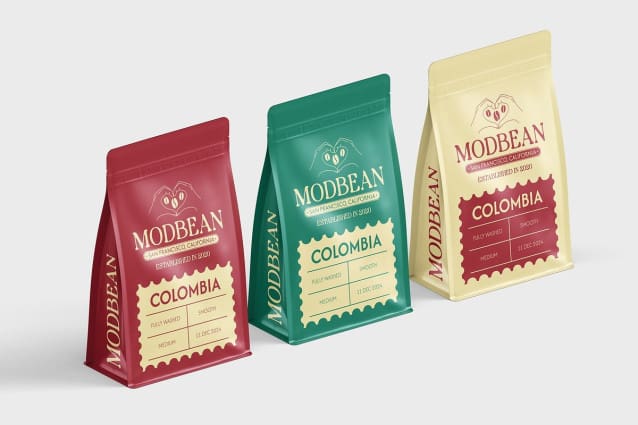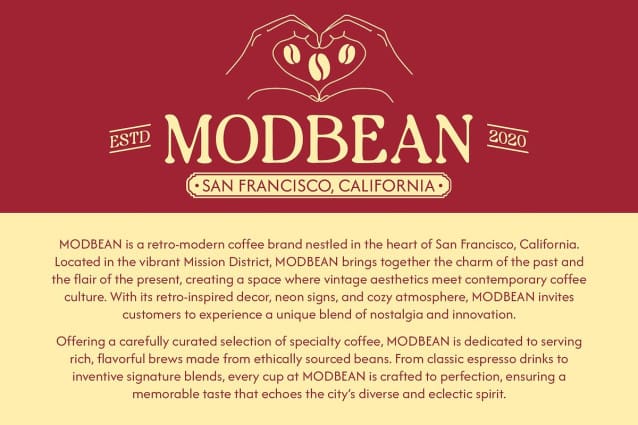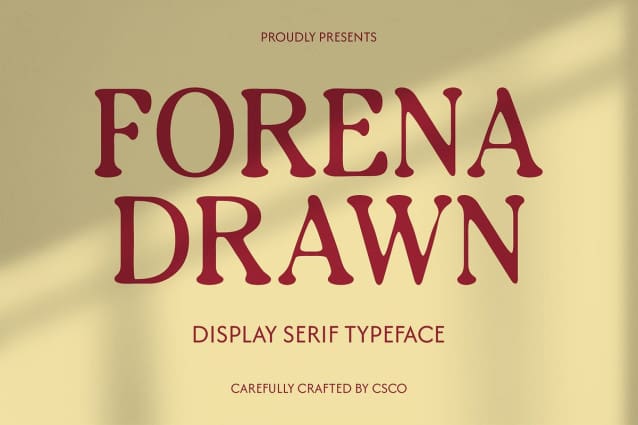
Forena Drawn Font
Forena Drawn Font is a modern serif font that beautifully balances contemporary style with classic sophistication. Its rounded forms and smooth curves give it a clean yet soft aesthetic, offering a refined elegance that makes it stand out in any design. The carefully designed letterforms provide a graceful and timeless feel, making it suitable for high-end projects that require a polished, professional appearance.
Hand-Drawn Effect for Artistic Charm What sets Forena Drawn apart is its subtle hand-drawn effect, which adds a unique, artistic flair to the font. The delicate, drawn details introduce an organic touch, bringing a sense of creativity and individuality to each character. This combination of modern precision and artistic imperfection enhances the font’s overall charm, making it ideal for projects that seek to combine elegance with a personalized, human touch.
Ideal for Luxury Branding and Invitations Forena Drawn’s sophisticated design is perfect for luxury branding, wedding invitations, or editorial layouts where elegance and creativity are paramount. Its smooth, flowing letterforms and understated artistic detailing make it the perfect choice for brands or projects aiming to evoke a sense of refinement and exclusivity. The font’s delicate balance of modern structure and artistic expression elevates the visual identity of any design.